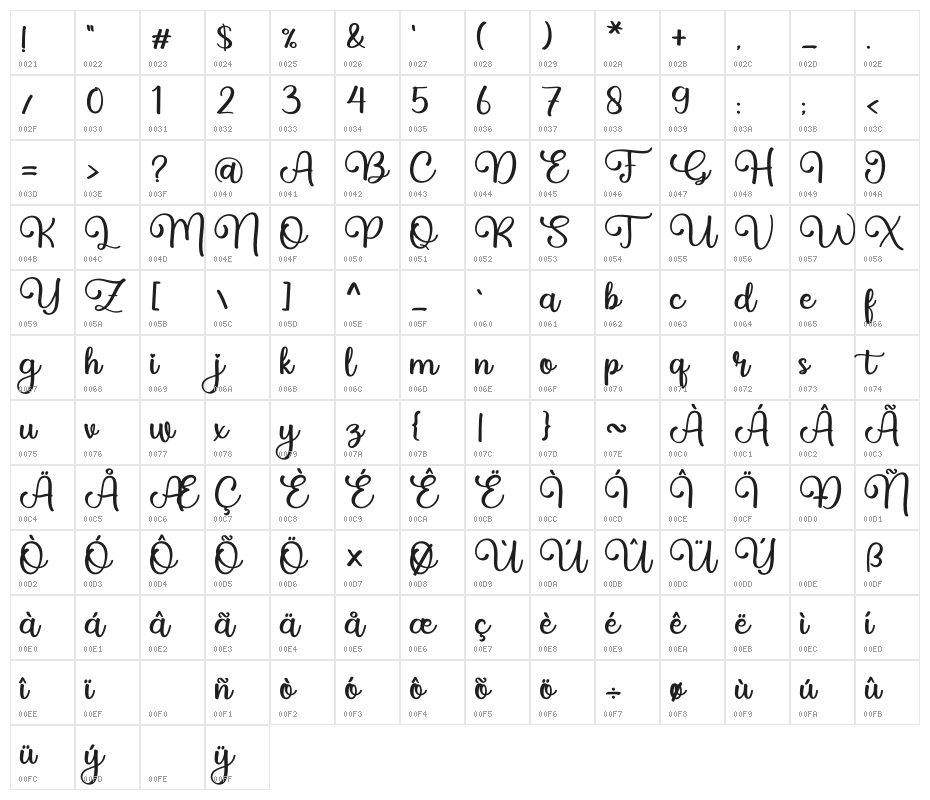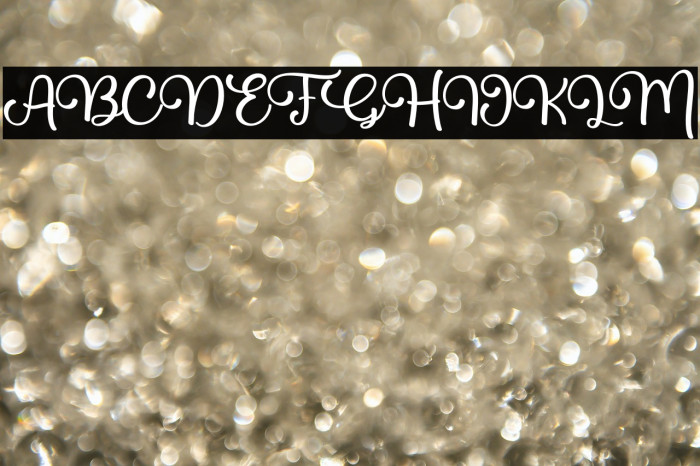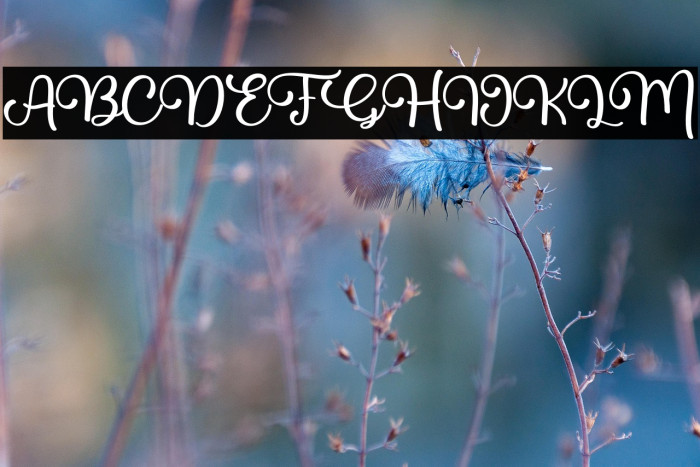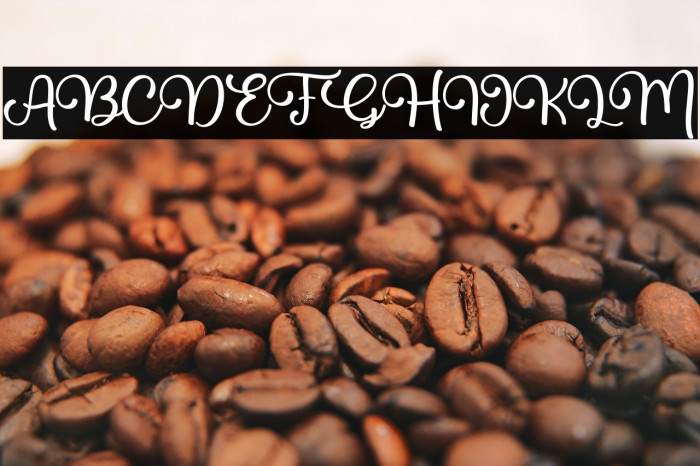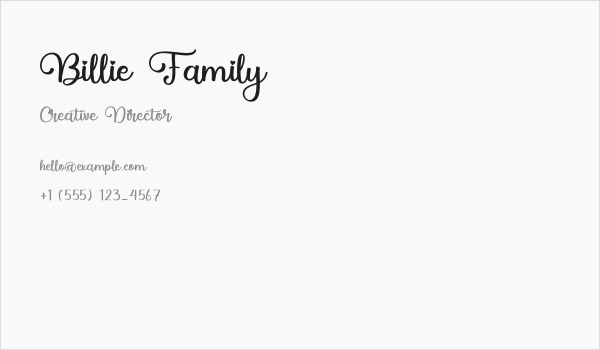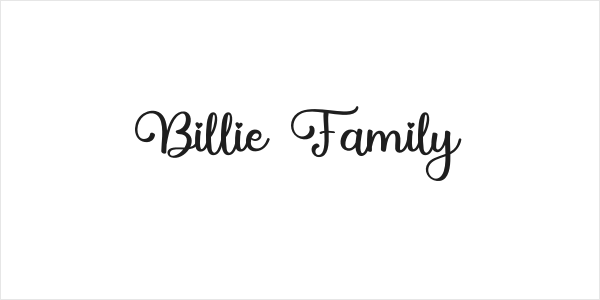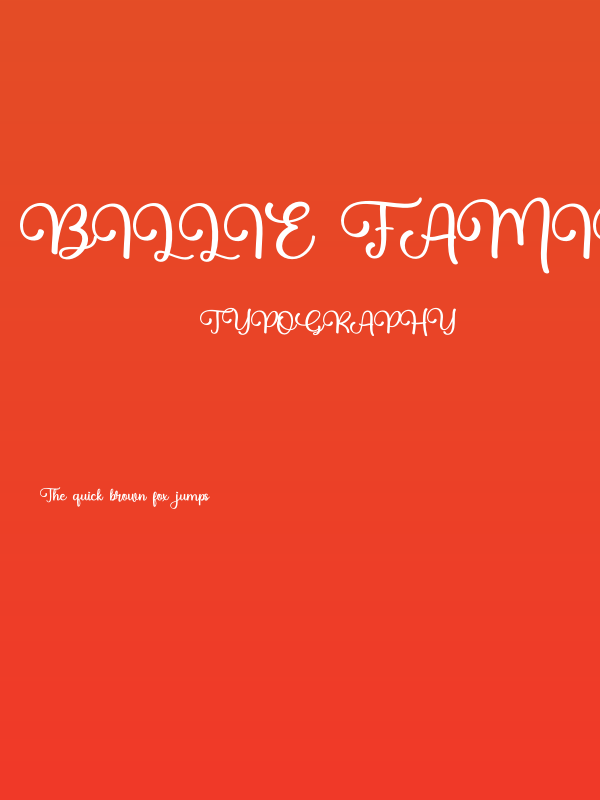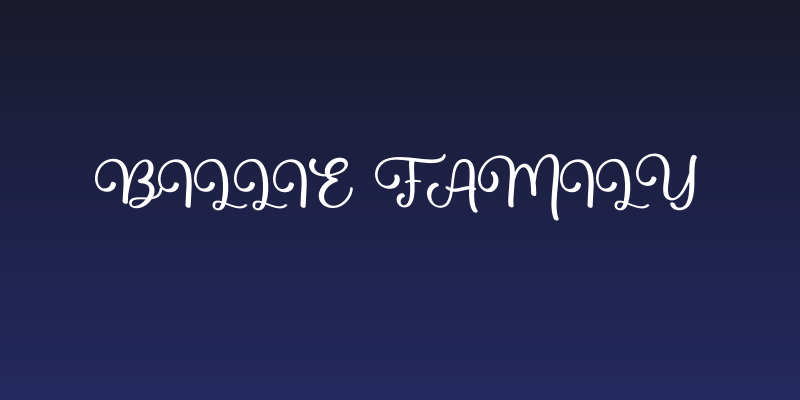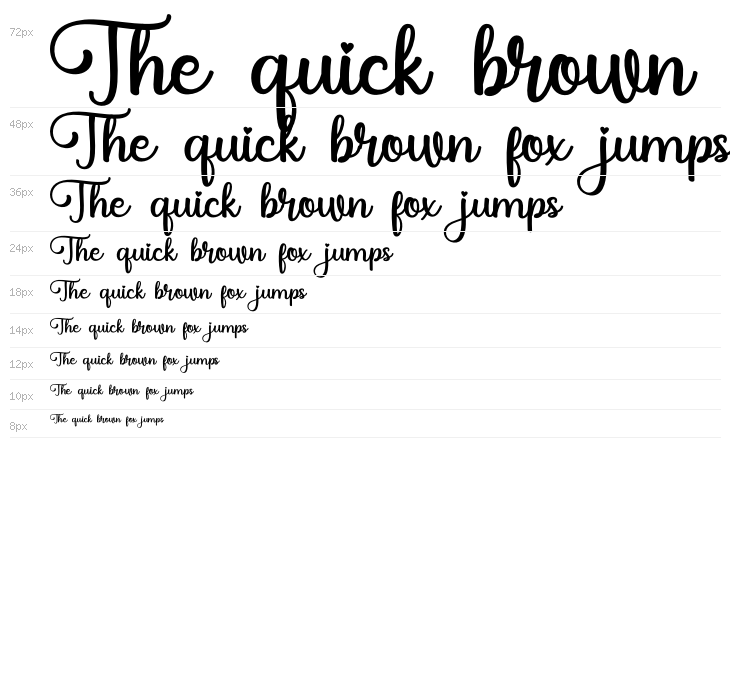
Billie Family Font
Billie Family Description
This font features a playful and whimsical script style, characterized by its flowing, interconnected letters. The uppercase letters are elegant and slightly elongated, with unique flourishes that add a touch of sophistication. The lowercase letters maintain a consistent flow, with rounded forms and occasional loops that enhance its charm. The numerals are clear and legible, complementing the overall style with their rounded edges. Special characters are creatively designed, maintaining the font's playful essence. This font is ideal for projects that require a personal touch, such as invitations, greeting cards, and branding materials. Its decorative nature makes it stand out, while its readability ensures it remains functional.